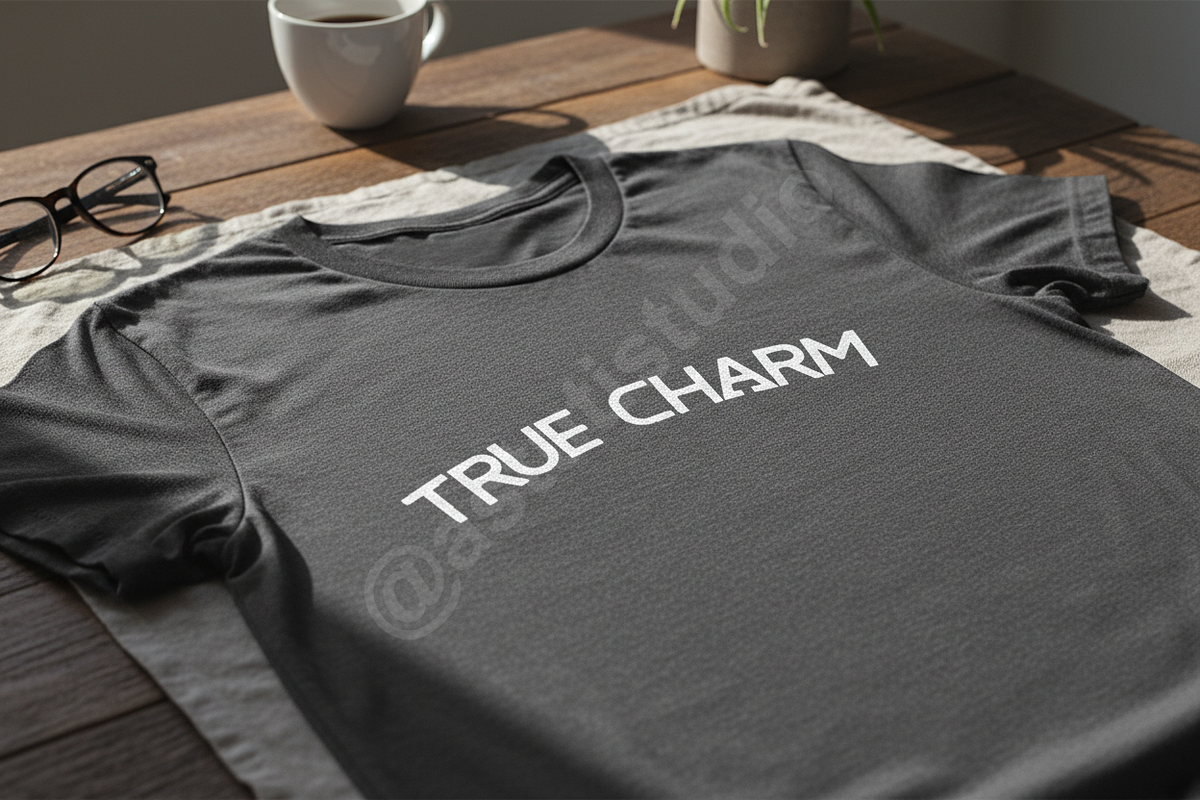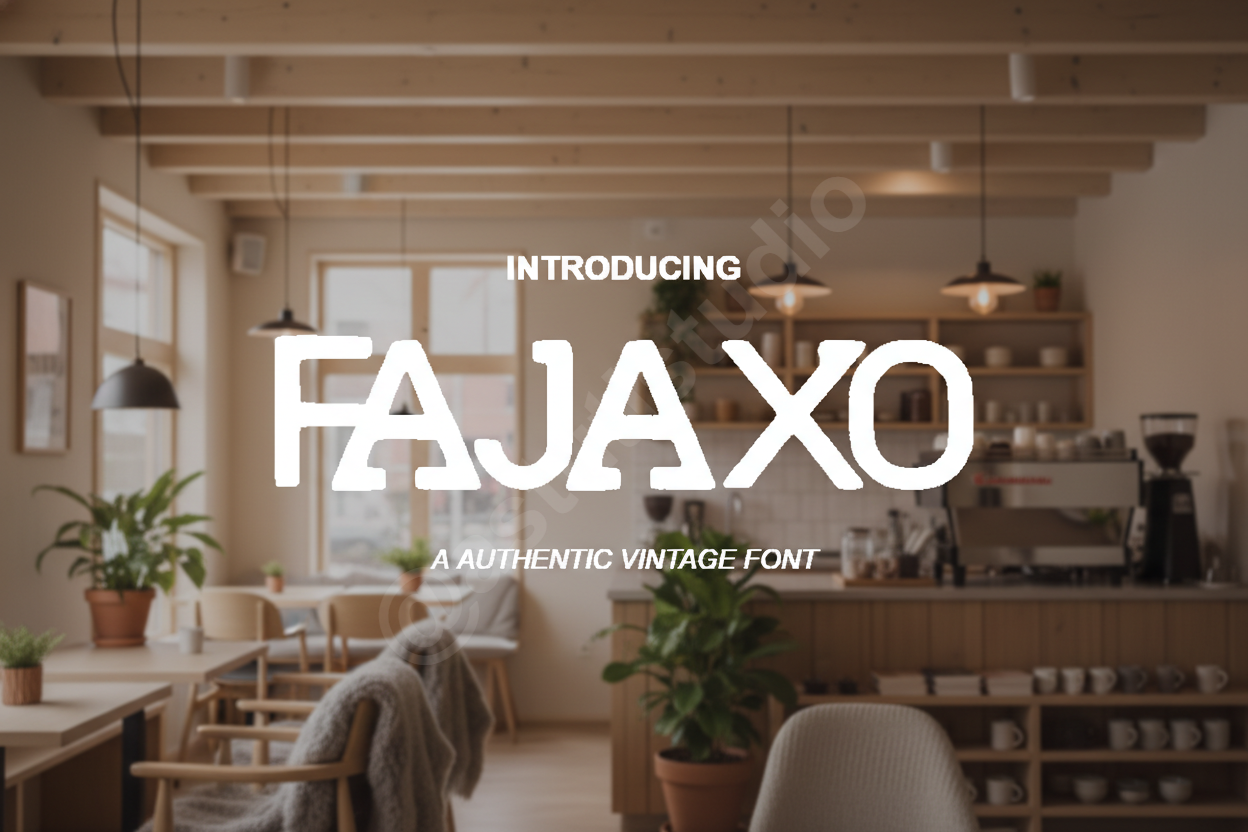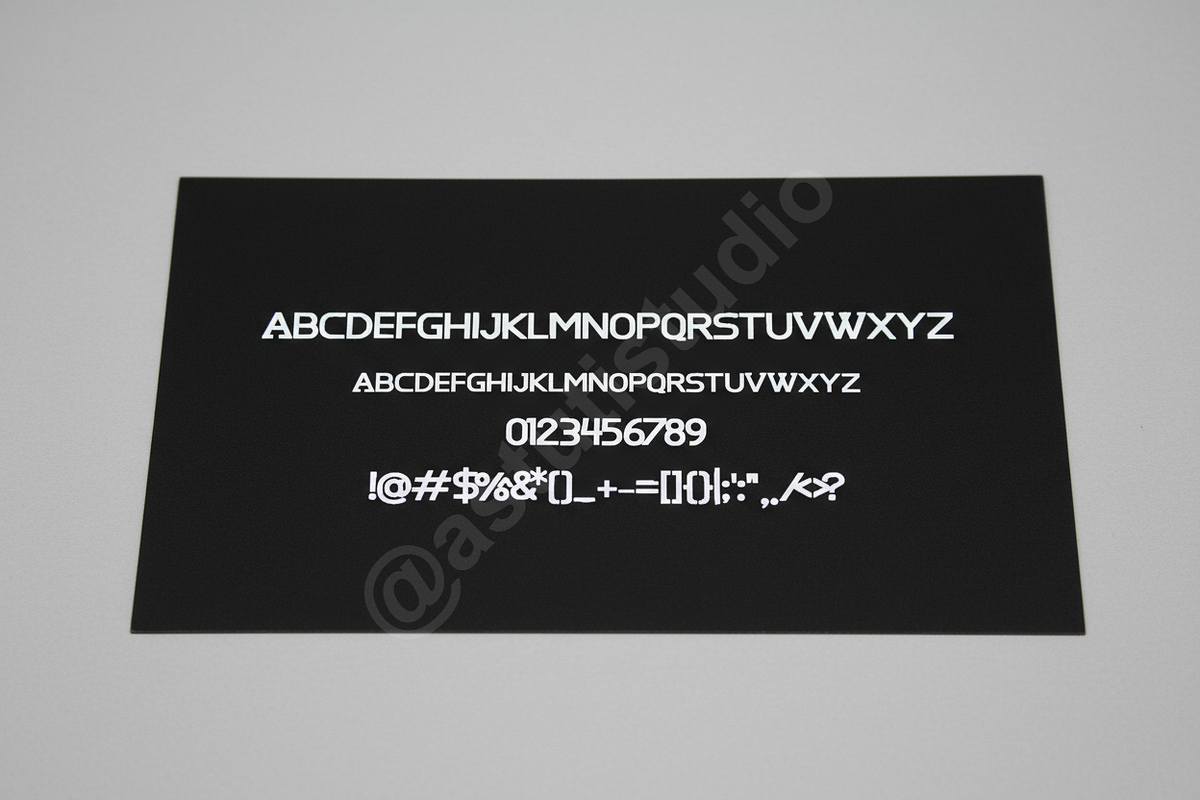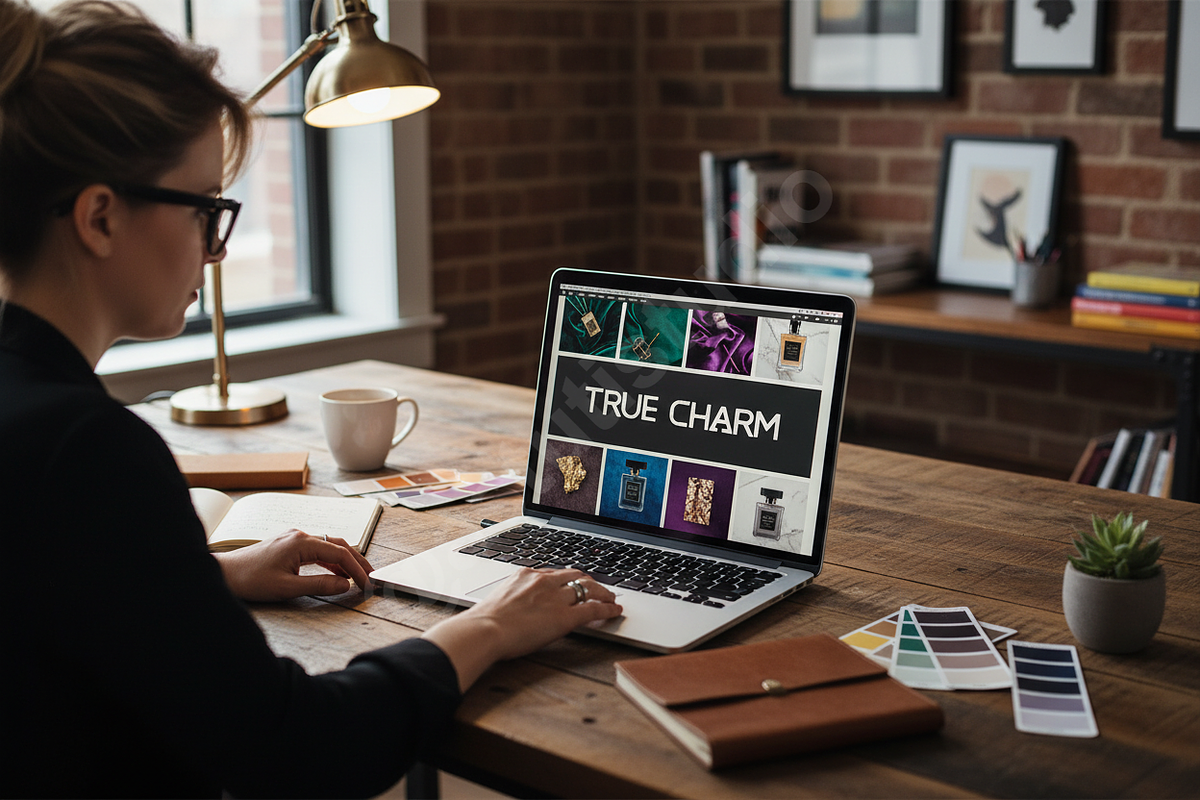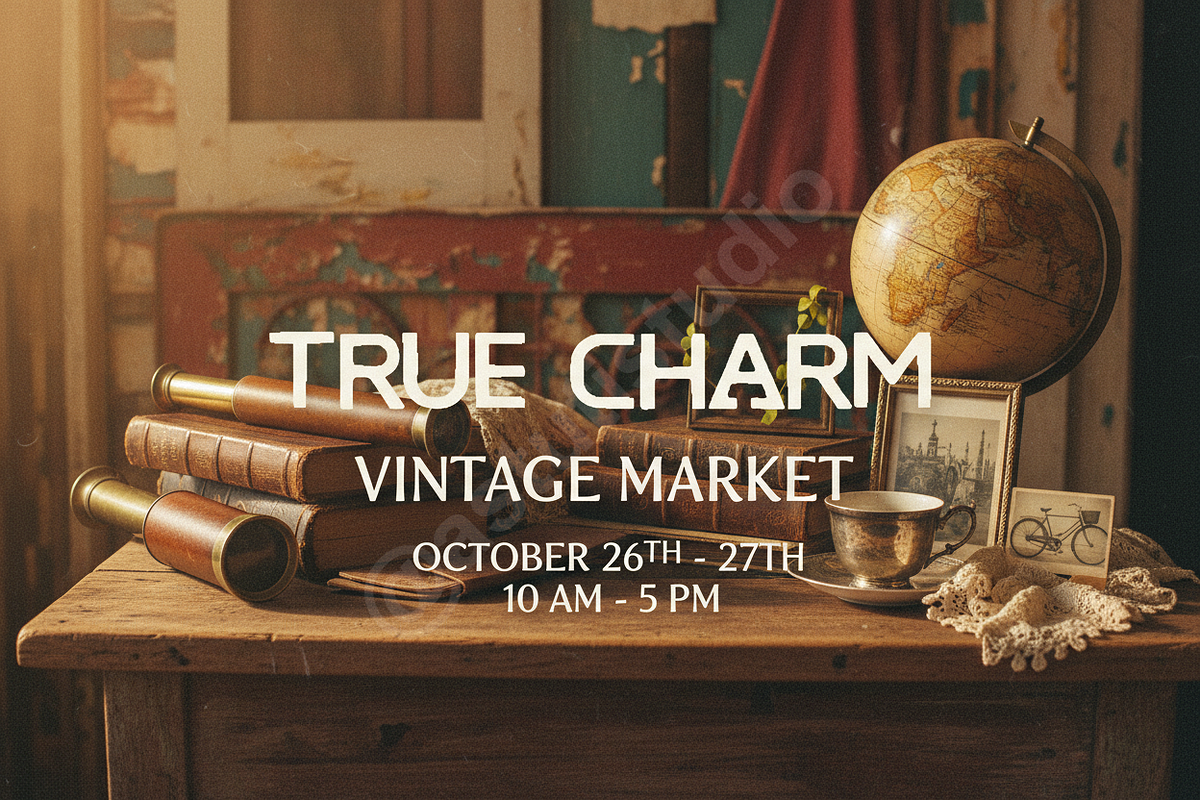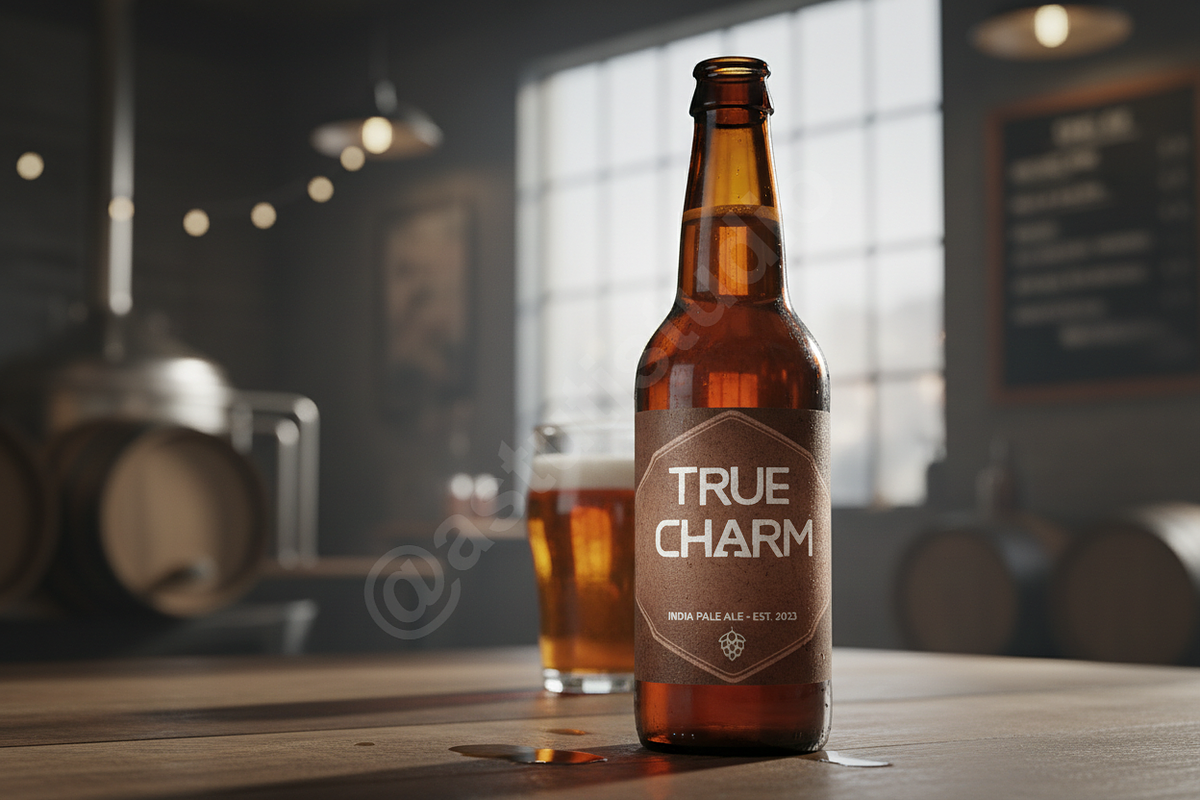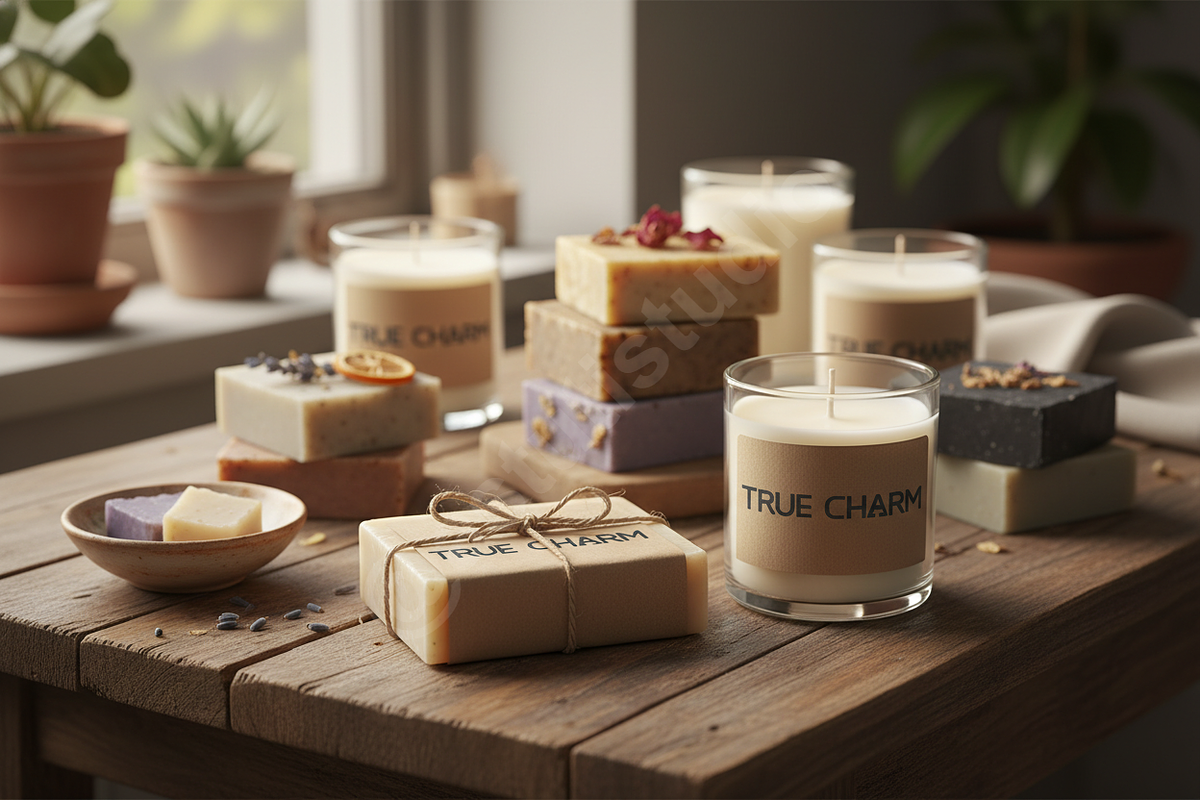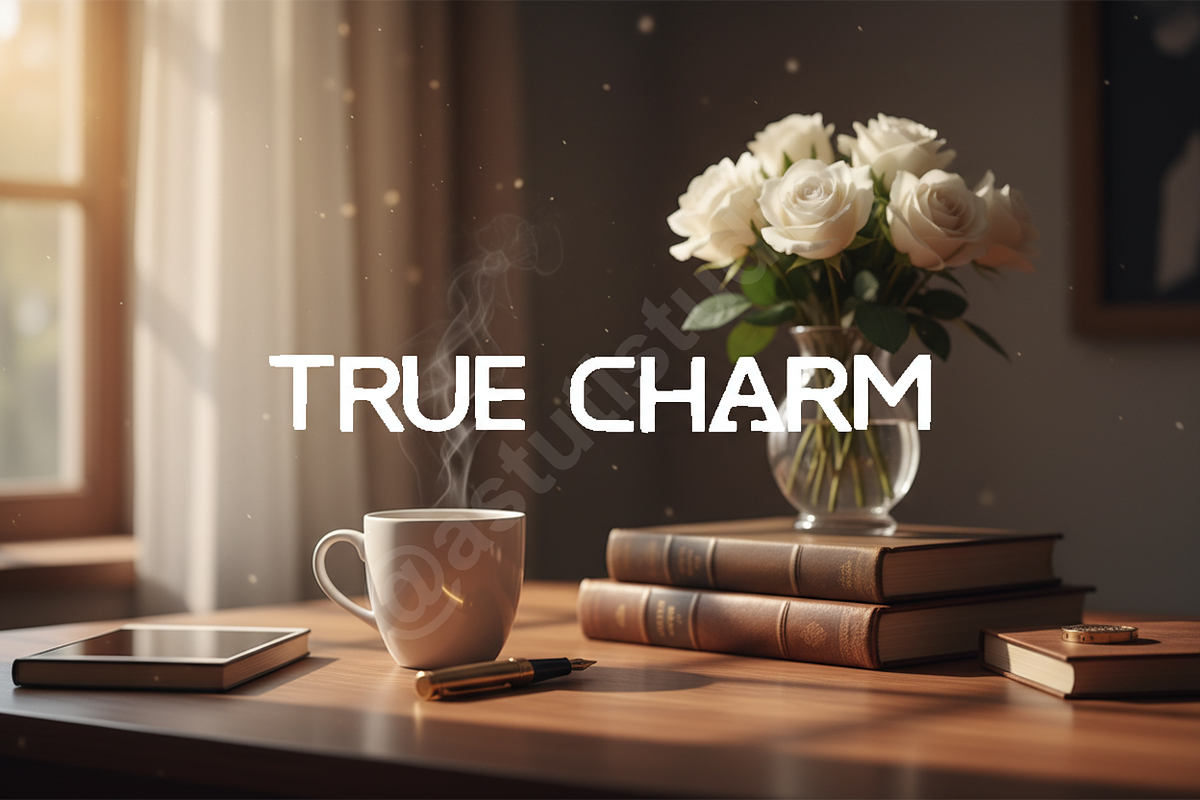
Fajaxo - Modern Luxury Serif Font
Introduction: Introducing Fajaxo, a meticulously crafted typeface designed to elevate your creative projects with an unparalleled sense of sophistication and modern elegance. Fajaxo embodies the essence of premium design, making it the quintessential choice for luxury branding, distinguished editorial layouts, and captivating social media presence. Its refined lines and thoughtful character design resonate with high-end aesthetics, ensuring your message is conveyed with authority and grace.
- Elegant & Modern Design: A harmonious blend of classic appeal and contemporary minimalist aesthetics.
- Versatile Application: Perfectly suited for both striking headlines and readable body text.
- Comprehensive Character Set: Includes uppercase, lowercase, numbers, punctuation, and extensive multilingual support.
- Opulent Presence: Designed to impart a luxurious and exclusive feel to any design.
- Optimized for Digital & Print: Ensures crisp readability across all mediums.
- Full uppercase and lowercase alphabet
- Numerals and extensive punctuation
- Multilingual support for a wide range of languages